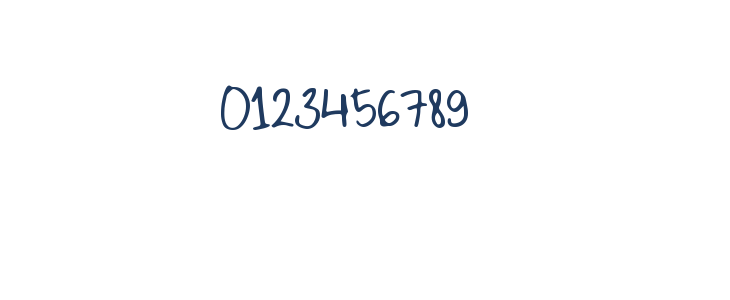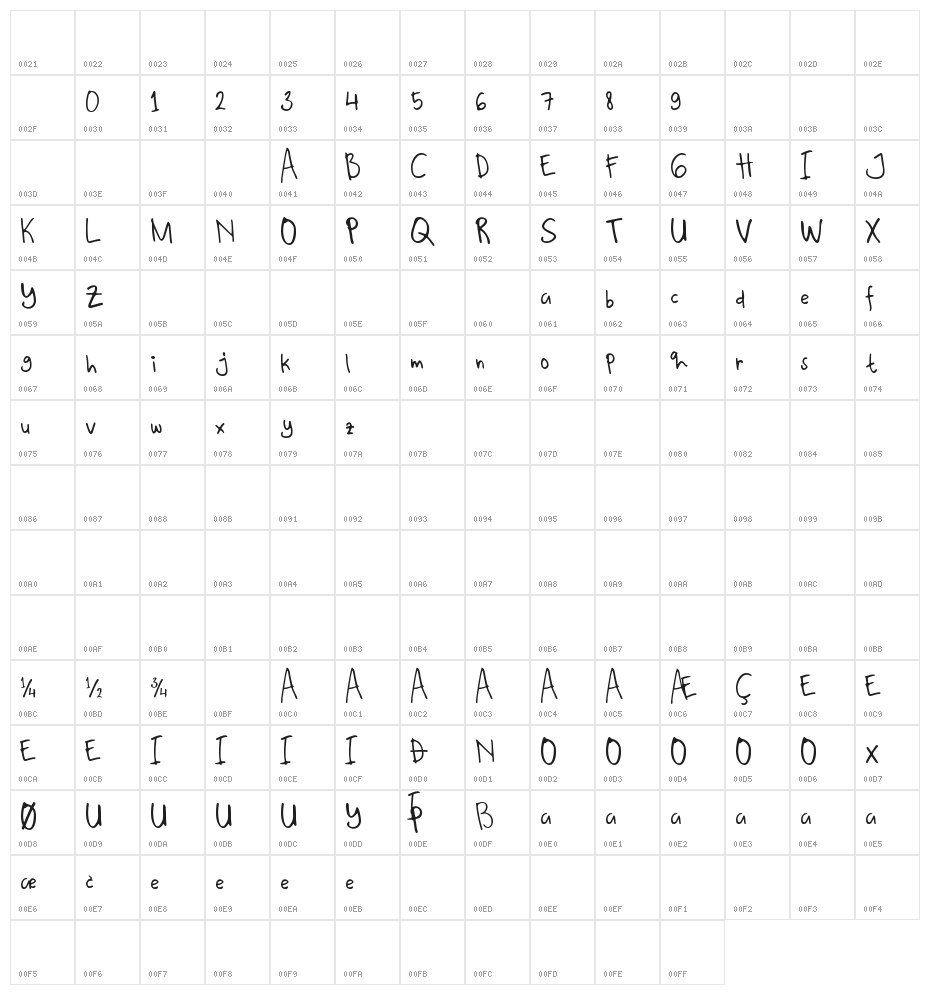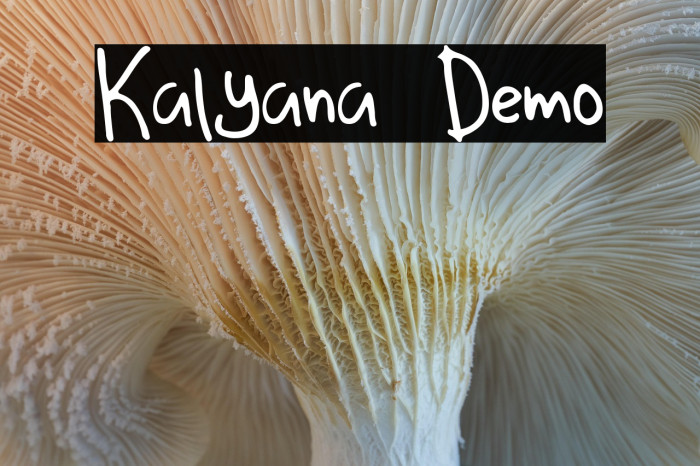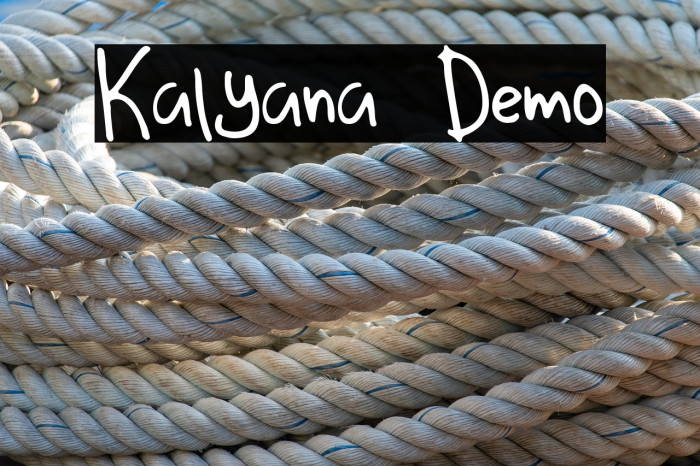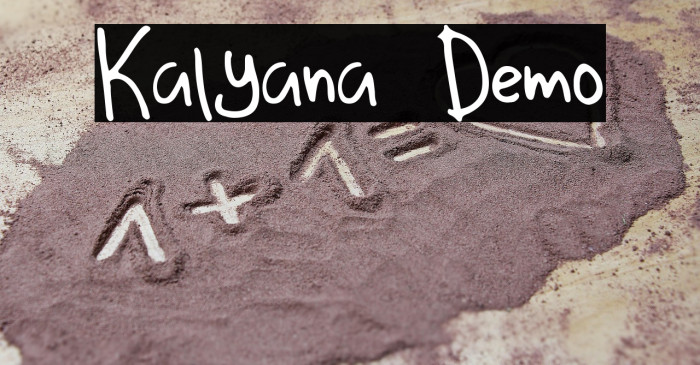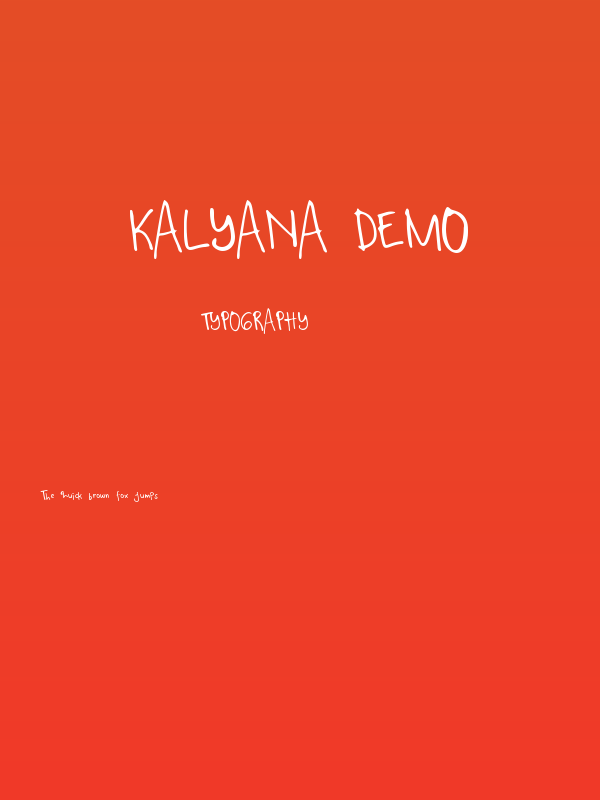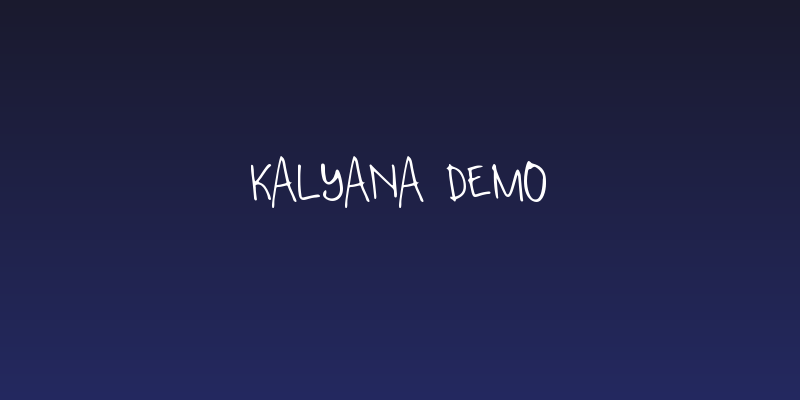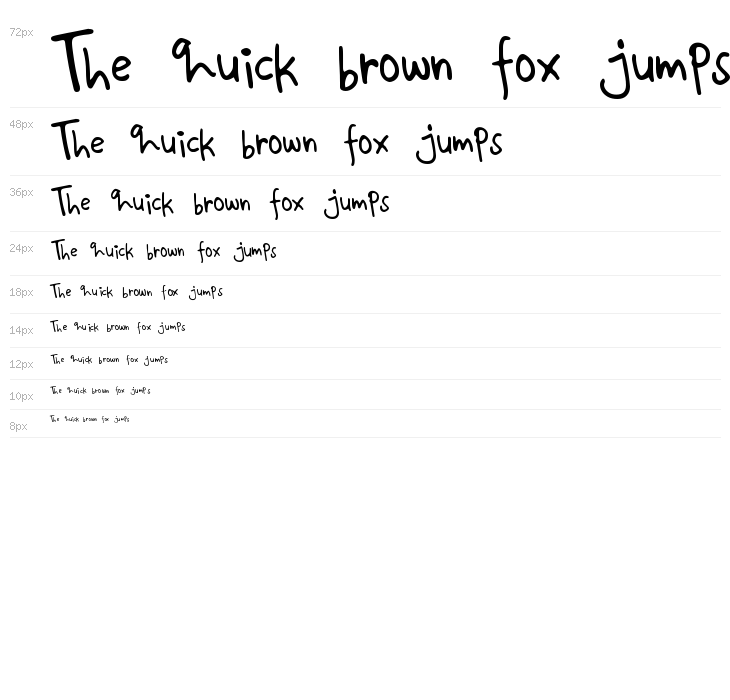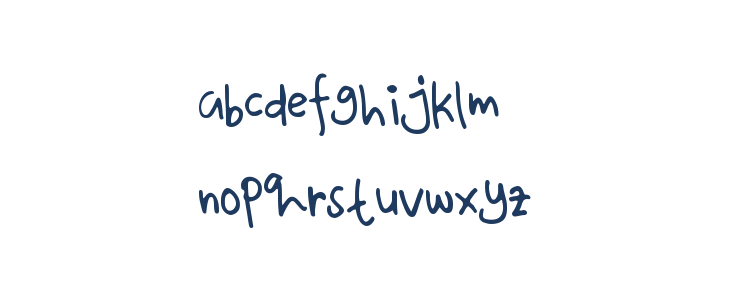
Kalyana Demo Font
Kalyana Demo Description
This font exhibits a playful and casual handwritten style, characterized by its irregular and slightly uneven strokes that mimic natural handwriting. The letters are rounded and have a friendly, approachable feel, making it suitable for informal and creative projects. The uppercase and lowercase letters maintain a consistent style, with a slight slant that adds to the dynamic and lively appearance. The numerals and special characters follow the same aesthetic, ensuring a cohesive look across all text elements.
| Proposed Projects | Ideal for greeting cards, children's books, personal blogs, and creative branding projects. |